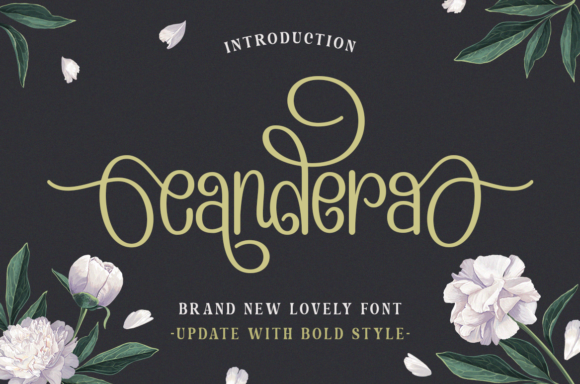
Introducing Candera Font - a Remarkable Display Font for an Exquisite Aesthetic:
Candera Font, a masterpiece from the Zarma Type foundry, is an exceptional display font that exudes elegance and charm. Its delicate strokes and flowing curves bring a touch of sophistication to any design project, captivating your audience with its timeless beauty.
Crafted with precision and passion, Candera Font is a versatile font family, perfect for a wide range of creative endeavors. Whether you're designing wedding invitations, crafting elegant logos, or creating enchanting social media graphics, Candera Font will elevate your designs to new heights.
Indulge in a World of Design Possibilities:
With its stunningly intricate details and graceful lines, Candera Font is a true visual delight. Its enchanting characters add a touch of romance to wedding invitations, making your special day even more memorable.
Unleash your creativity and craft logos that exude luxury and refinement. The font's refined curves and elegant flourishes add a touch of sophistication to business cards, letterheads, and marketing materials, leaving a lasting impression on your clients.
Step into the realm of social media and captivate your audience with captivating graphics and posts. Candera Font's charming aesthetics will make your content stand out, attracting new followers and boosting engagement.
Why Choose Candera Font?
Candera Font is more than just a font; it's an investment in design excellence. Its exceptional quality and versatility make it a must-have for designers seeking to create stunning and memorable designs.
Immerse yourself in the world of Candera Font and discover a treasure trove of creative possibilities. Let your imagination soar as you craft designs that resonate with beauty, elegance, and timeless appeal.